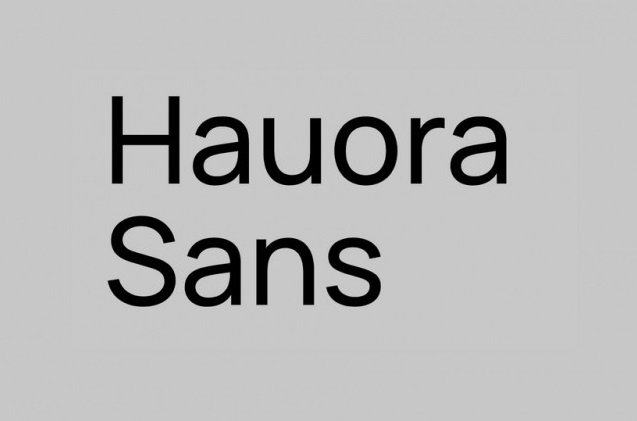
Hauora Font Family
Hauora Font is a low contrast neo-geometric sans defined by minimalism, geometry and purity of form with a balanced width, generous x-height, and short ascenders and descenders, giving it a simple and clean look. It comes as variable font + 7 legacy weights, packed with OpenType features and supports most of Latin and Cyrillic languages.